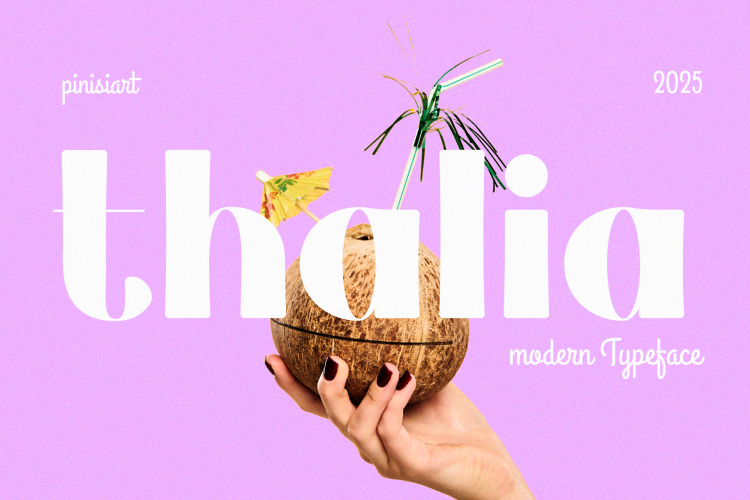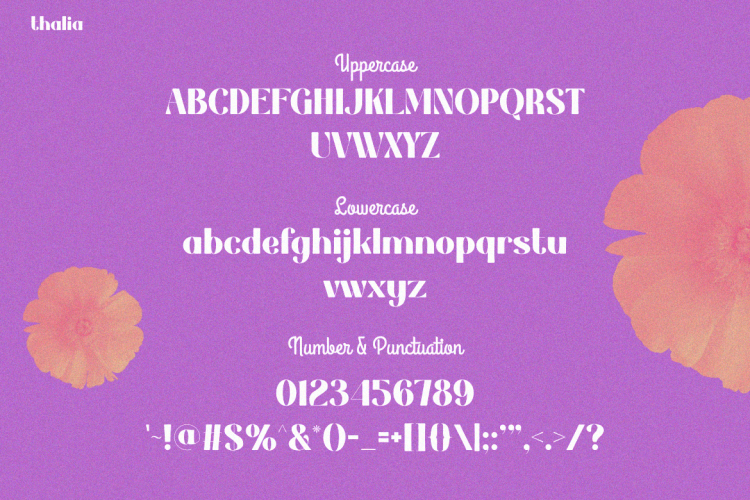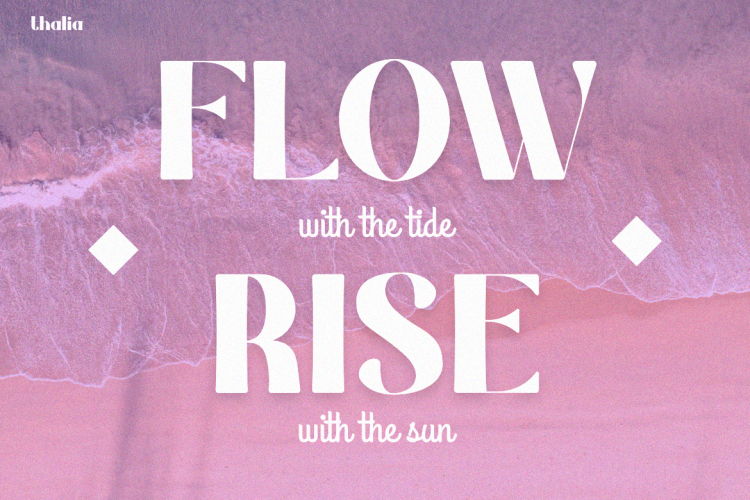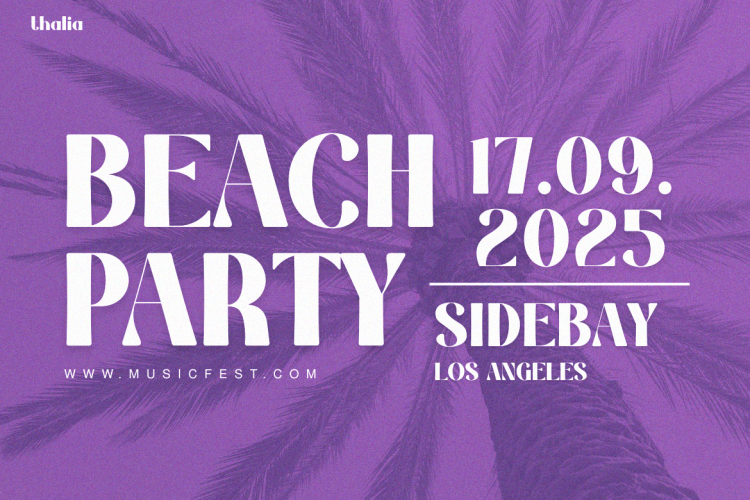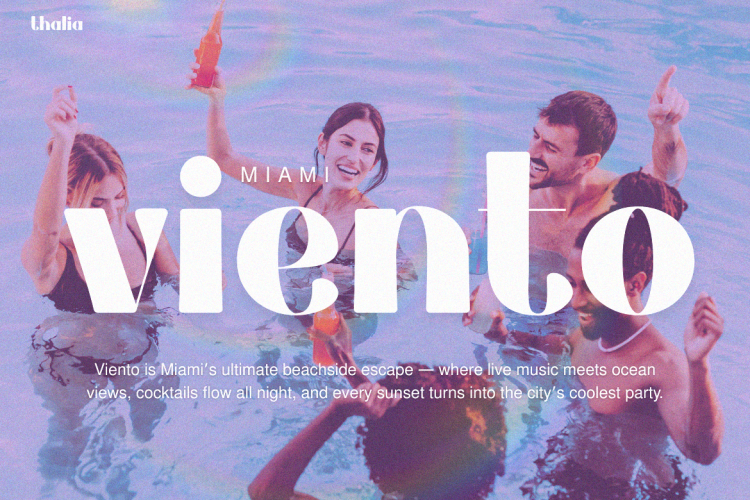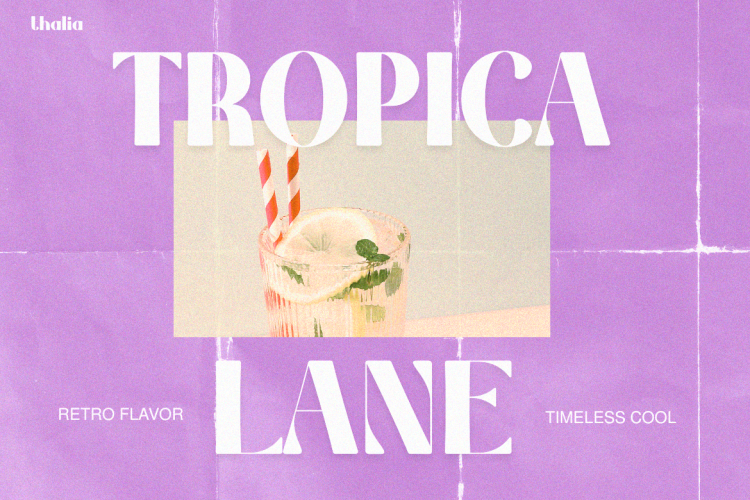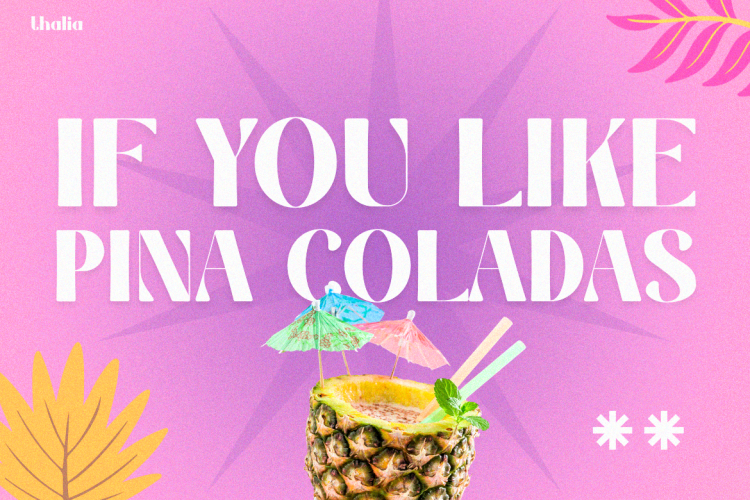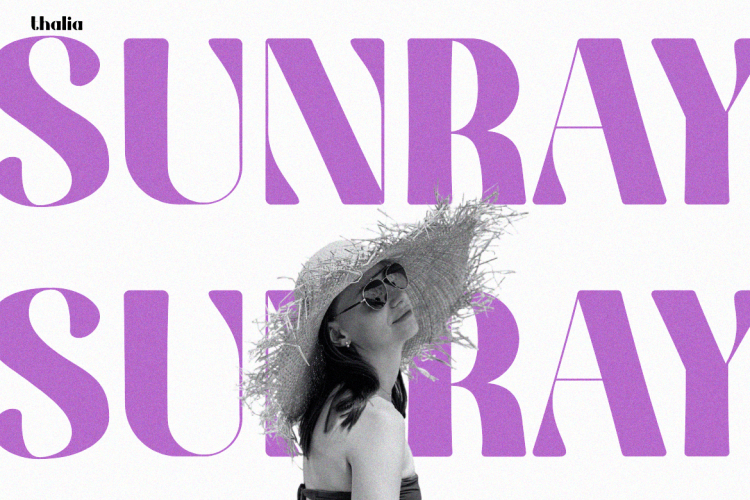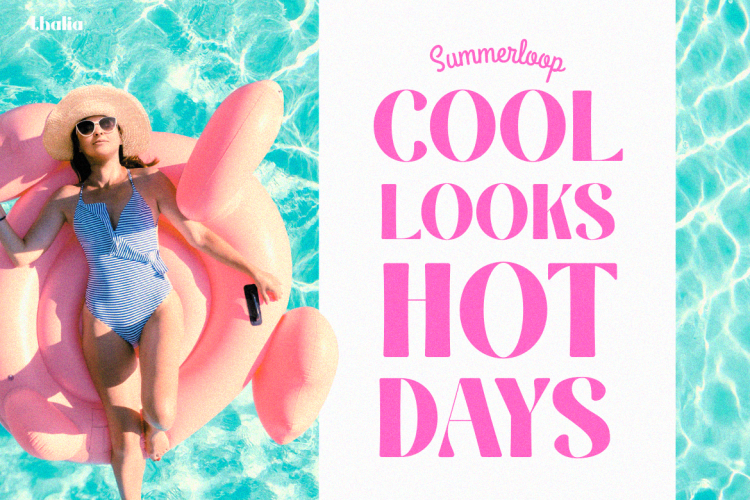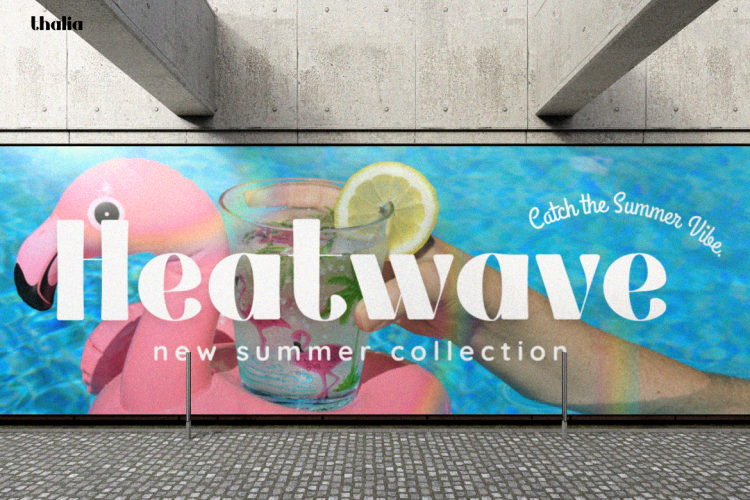
Instagram Font Thalia โ Make Every Word Unstoppable
Instagram Font Thalia isnโt just typographyโitโs pure impact. With bold strokes, chic curves, and a stylish edge, this font commands attention the moment it hits the screen. Moreover, itโs loud without being messy, modern yet timeless, and playful while still radiating confidence. Every letter is designed to shine, giving your text the kind of energy that turns simple words into unforgettable visuals. Therefore, if you want your designs to scream style, Thalia is the ultimate weapon.
Who Itโs For
๐ฅ Influencers & Creators who refuse to blend inโperfect for captions, posts, and reels that demand engagement. In fact, their content becomes instantly more memorable when paired with bold lettering like Thalia.
๐ฅ Brands & Entrepreneurs in fashion, travel, lifestyle, and beauty who need to sell not just products, but vibes. As a result, their branding gains more recognition and a stylish, professional edge.
๐ฅ Designers & Marketers crafting campaigns, ads, and flyers that canโt afford to go unnoticed. In addition, Thalia ensures their message pops instantly across both digital and print media.
Whether you are creating summer party posters, seasonal launches, or bold Instagram stories, Thalia makes your message impossible to ignore. On the other hand, ordinary fonts fade away quickly and lose audience attention.
Why You Need It
Because ordinary fonts donโt cut through the noise. Instagram Font Thalia makes your words impossible to scroll past. Furthermore, itโs not just typeโitโs personality, attitude, and confidence packed into every curve. As a result, your projects look professional, stylish, and unforgettable. And since the font is versatile, it adapts beautifully to both modern and retro-inspired designs, making it a long-term creative investment.
If youโre ready to dominate feeds, stop the scroll, and give your projects the punch they deserve, then Instagram Font Thalia is your next creative powerhouse. In conclusion, donโt settle for averageโchoose Thalia and make your words unstoppable.